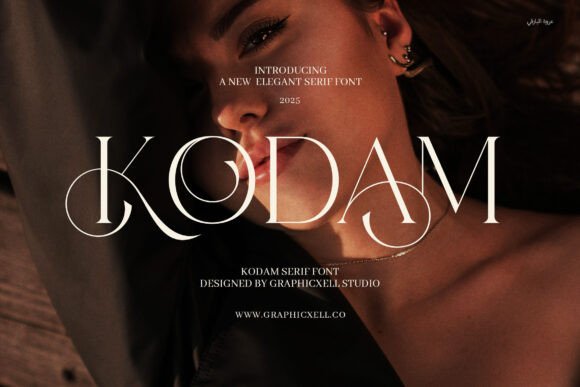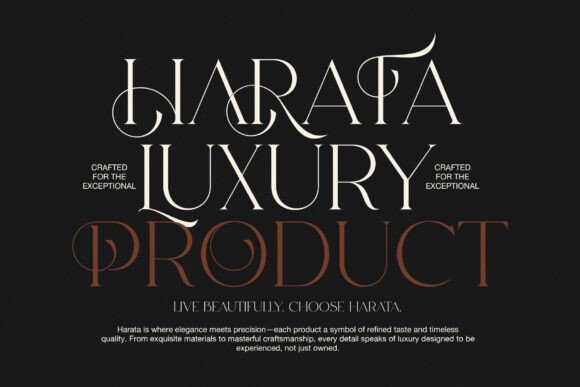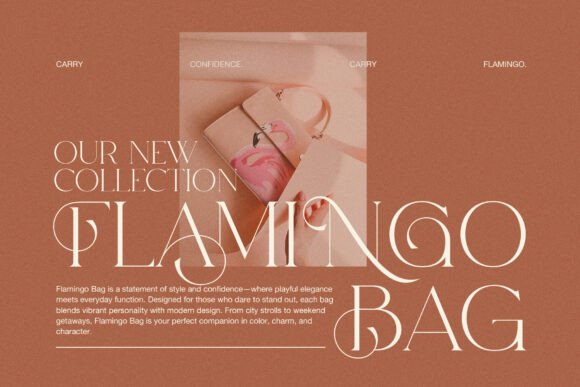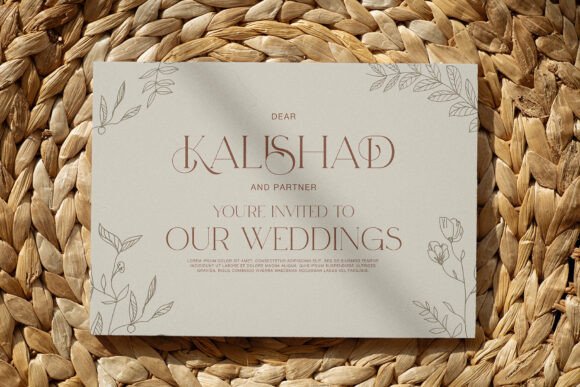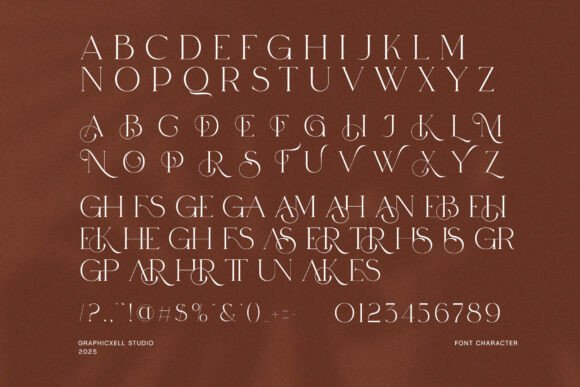
Kodam Font
Presenting the **Kodam Elegant Serif Font** – a stunning blend of modern sophistication and timeless elegance. This exquisite serif typeface is designed to bring a touch of class and refinement to any creative project, making it the perfect choice for those seeking a distinctive, high-end look.
Kodam Elegant stands out with its beautifully crafted serifs and graceful curves, offering a unique and stylish appearance that speaks to both tradition and contemporary design. Its sleek yet classic letterforms make it a versatile font for a variety of uses, from premium branding and high-end product packaging to luxurious magazine layouts and elegant websites.
Whether you are designing a striking logo, an eye-catching advertisement, or a chic boutique identity, Kodam Elegant provides the perfect balance of readability and visual appeal. Its modern characteristics make it ideal for a wide range of industries, including fashion, beauty, food, and lifestyle, while its refined design ensures it maintains a premium, upscale feel.
Kodam Elegant Serif Font is a perfect match for projects that require a distinctive and polished touch. Its sophisticated style effortlessly enhances your design, giving it an air of exclusivity and luxury. If you’re looking to create a brand that stands out with a modern yet classic vibe, Kodam Elegant Serif Font is the ultimate choice to elevate your visual identity. Let your projects shine with this beautifully versatile font that blends modern elegance with timeless appeal.